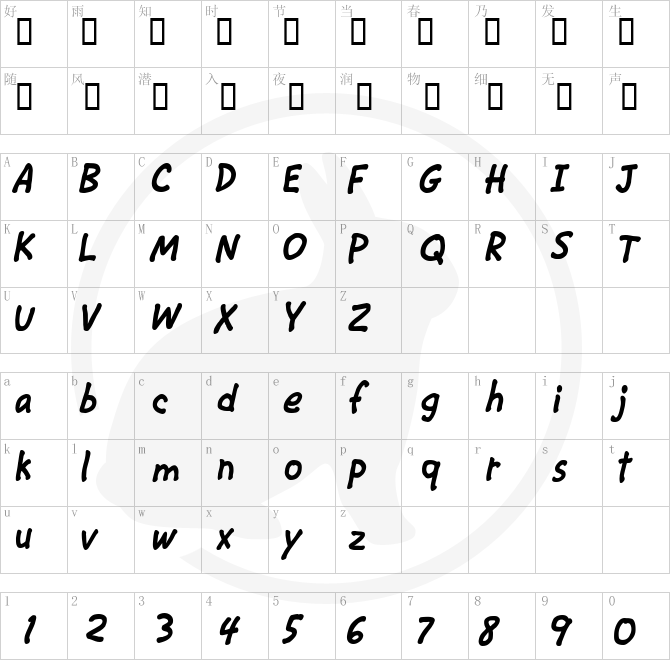
- Font Name:CAC Krazy Legs Bold
CAC-Krazy-Legs-Bold.ttf is a very beautiful artistic font, CAC-Krazy-Legs-Bold.ttf is widely used in the design and printing of various books and pictures,CAC-Krazy-Legs-Bold.ttf has a strong visual impact,CAC-Krazy-Legs-Bold.ttf is a commonly used font in newspapers, magazines and books, and is used in posters, e-commerce Poster design, store design, logo design, font design and other fields.CAC-Krazy-Legs-Bold.